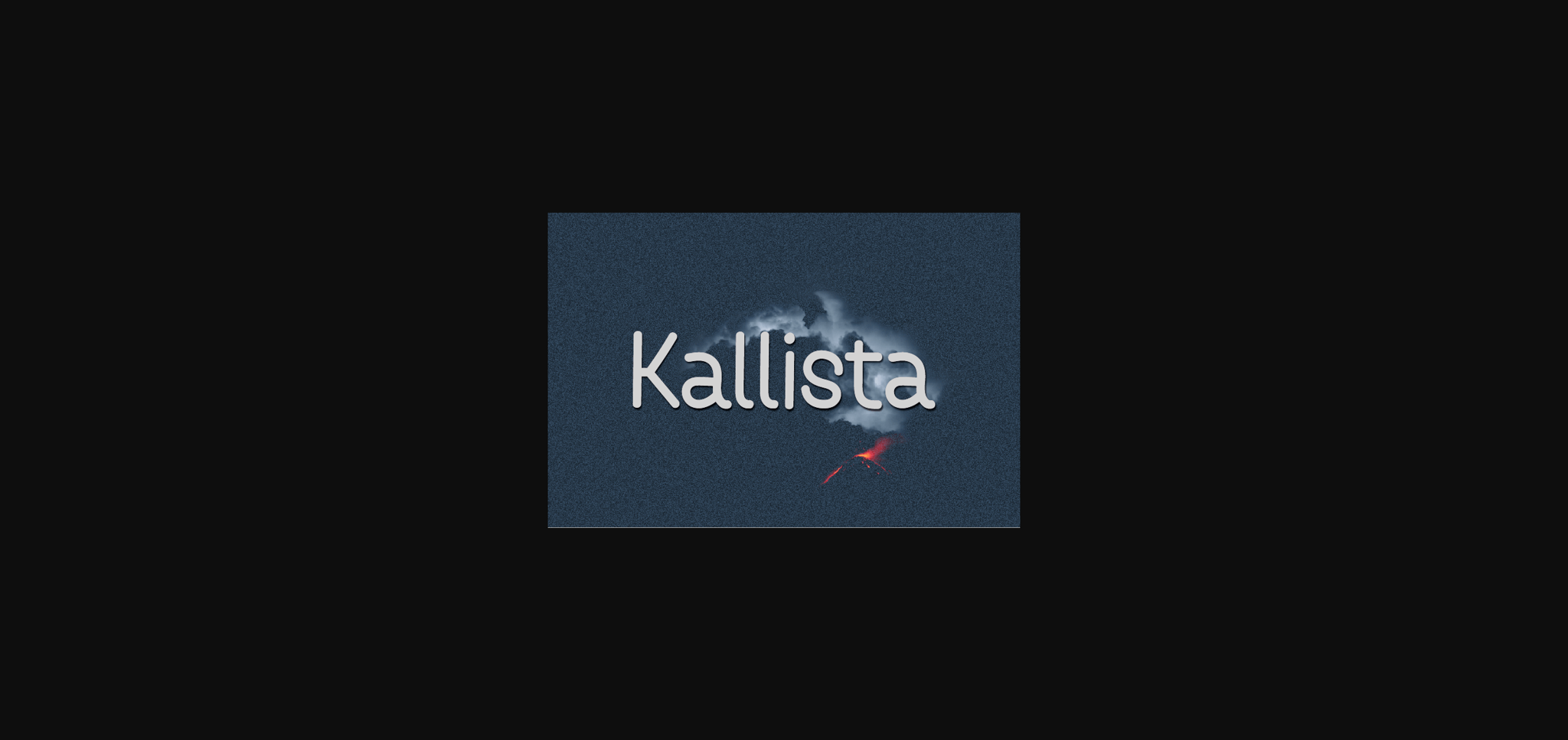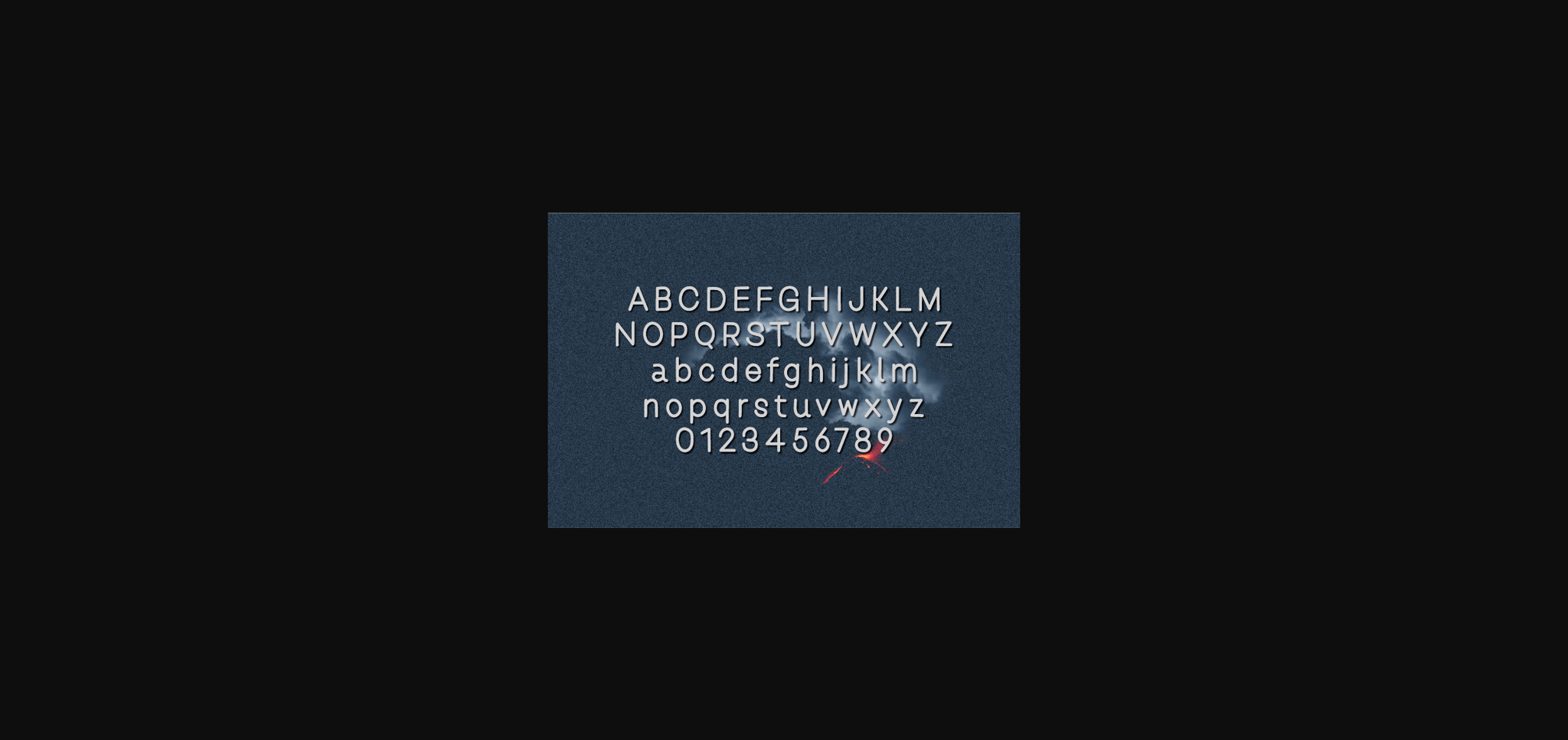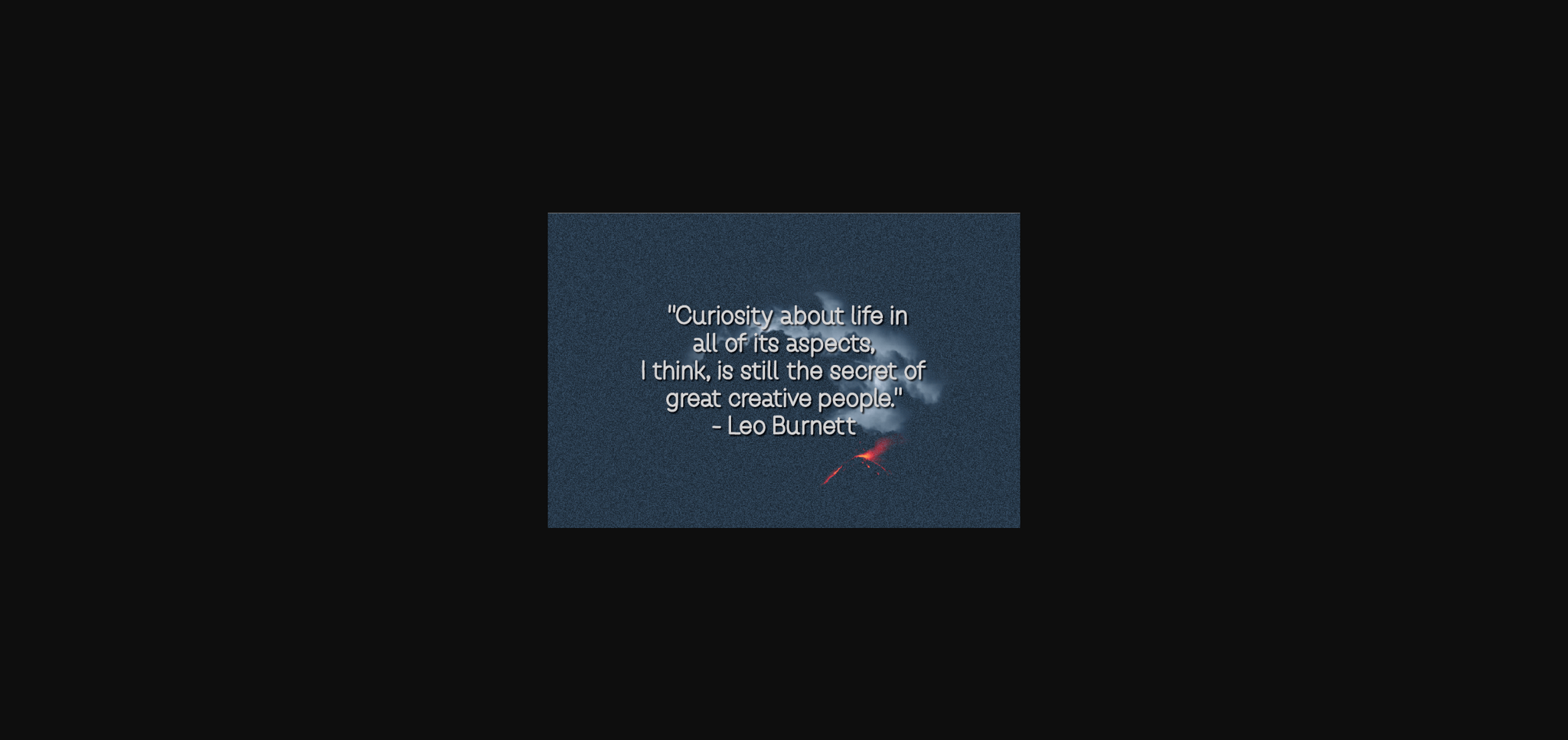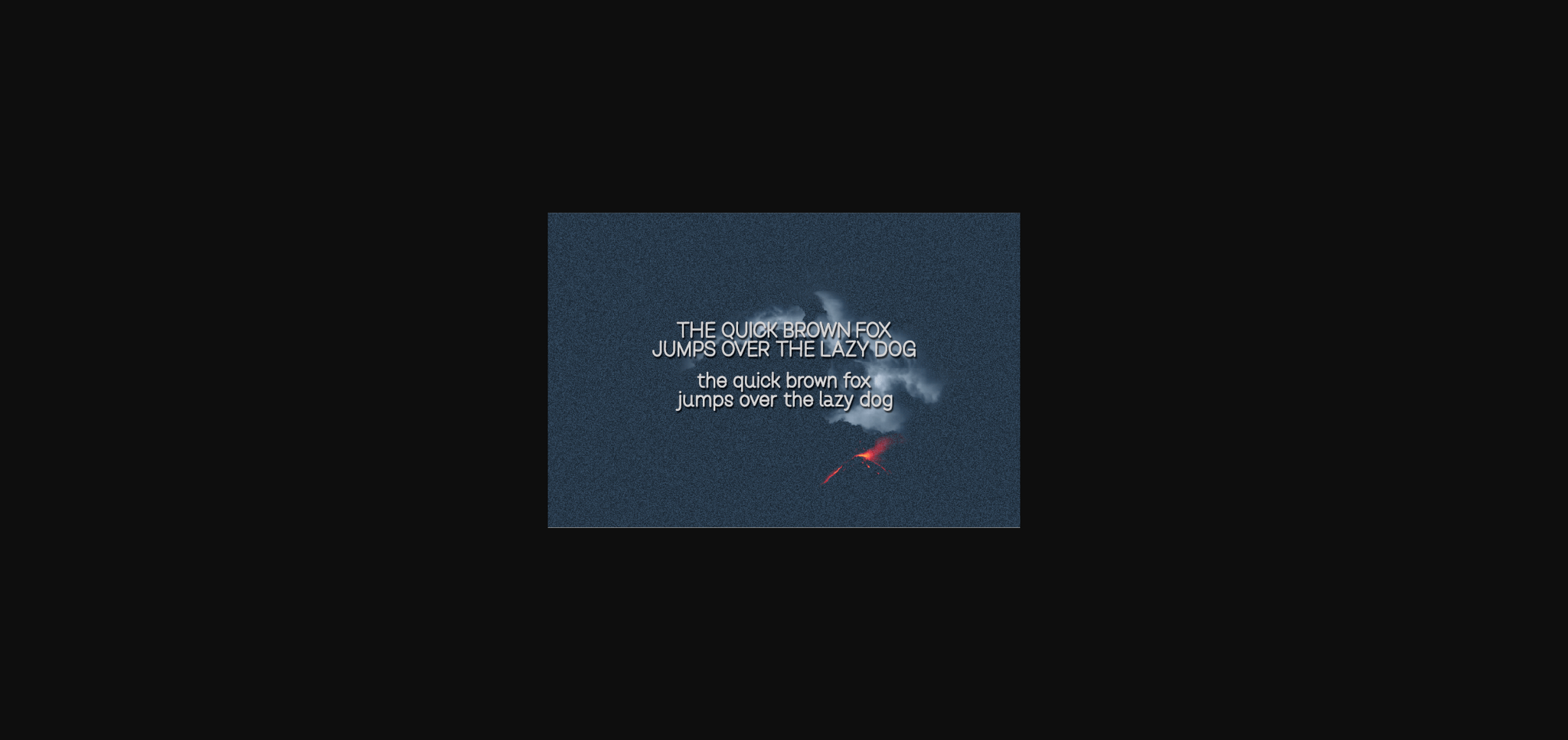
HomeSans Serif FontsKallista Font Sans Serif Fonts Kallista Font FacebookXPinterestWhatsApp 1 of 6 ... Kallista Font Poster 2... Kallista Font Poster 3... Kallista Font Poster 4... Kallista Font Poster 5... Kallista Font Poster 6... About Kallista Font Kallista is a natural sans serif font made without changing a single node in each character’s indentation – this makes this font very interesting and unique. Perfect for quotes, notes, tees, and any product design. DOWNLOAD NOW People also explored TypeSet Trio Walk in the Wild Font Britania Sign Font Ringlight Font Vintage Queen Monogram Font Beautiful Font The Farm Font Sweet Honey Font Gatterys Font 274 0 TagsKallista Font Previous articleNectarios FontNext articleHandwrite Font LEAVE A REPLY Cancel reply Comment: Please enter your comment! Name:* Please enter your name here Email:* You have entered an incorrect email address! Please enter your email address here Website: Save my name, email, and website in this browser for the next time I comment. Personal Use Free BD Nokio Personal Use Free Read more about this font 1980 Portable Personal Use Free Read more about this font Happy Camping Personal Use Free Read more about this font Houstonville Personal Use Free Read more about this font BLOG 5 Fonts That Will Dominate Design Trends in 2026 5 Fonts for 2026 That Will Dominate Design Trends Typography plays a critical role in visual communication, and as we look ahead to 2026, it’s... Top 10 Handwritten Fonts That Elevate Your Designs Fonts That Capture the Spirit of New York City How to Cut Any Font on Cricut: Convert a Font to SVG (Free)